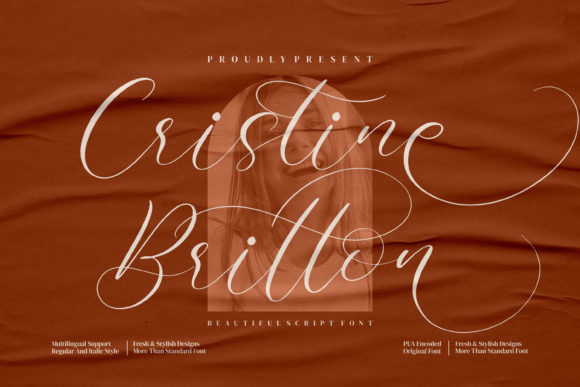
Immerse yourself in the world of elegance and sophistication with Cristine Britton Font, a captivating script font that will transform your designs into breathtaking masterpieces. Created by the talented integritypestudio, Cristine Britton is a visual symphony of flowing lines and graceful curves, embodying the essence of timeless beauty.
With its inherent charm and versatility, Cristine Britton effortlessly enhances any project it graces. Whether you're crafting delicate wedding invitations, expressing gratitude with heartfelt thank-you cards, or adding a personal touch to quotes and greeting cards, this font is your perfect companion. Its presence elevates logos and business cards, adding a touch of refinement that commands attention.
Beyond its aesthetic appeal, Cristine Britton is a practical choice for designers seeking both beauty and functionality. Encoded with PUA, it grants you effortless access to a treasure trove of glyphs and swashes, empowering you to unleash your creativity and add intricate details to your designs.